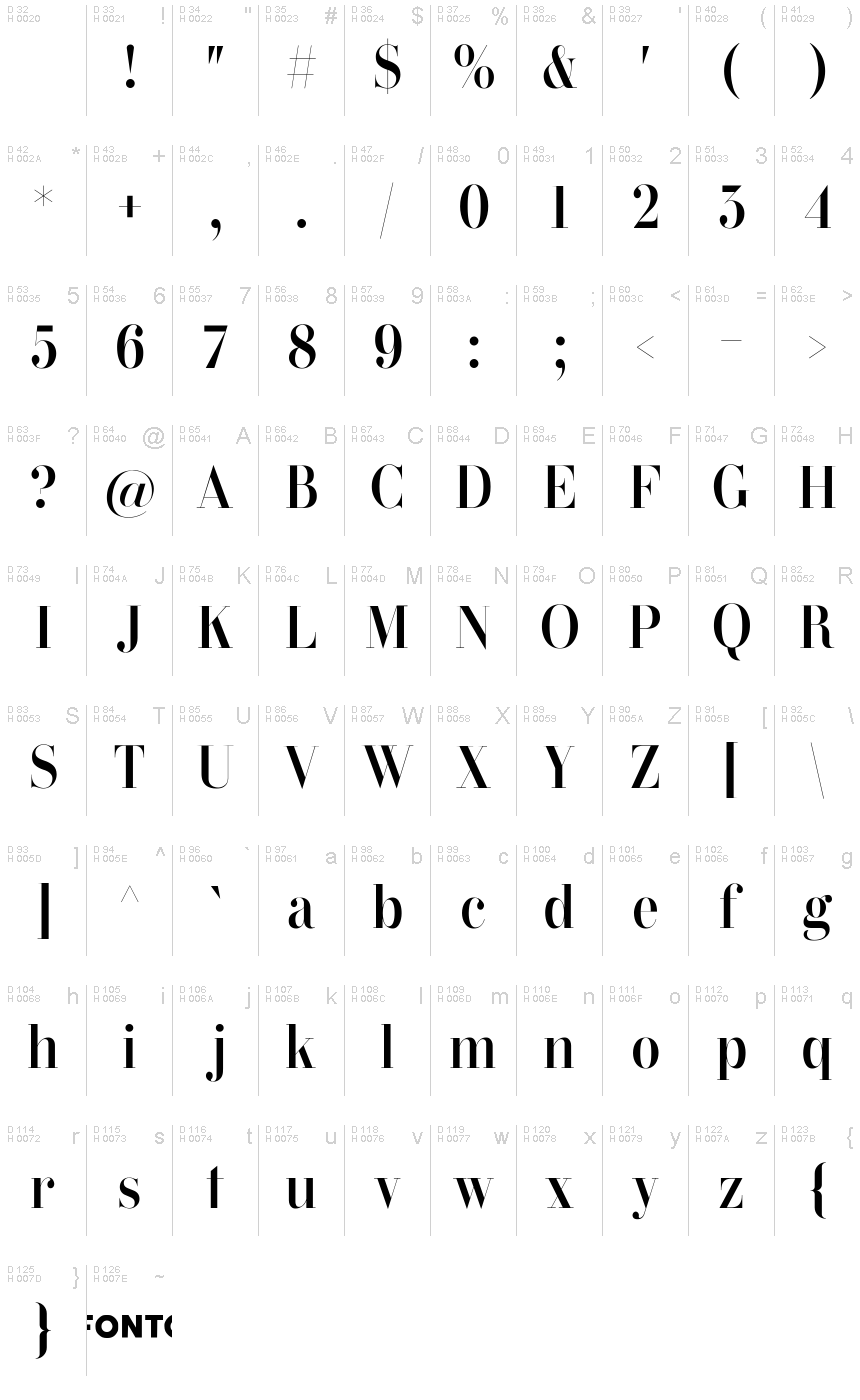
Bavex
Bavex, crafted by FG Studios, exudes an elegant yet contemporary charm through its distinctive serif style. The condensed structure offers a refined clarity, making it ideal for packed layouts while maintaining a sophisticated presence. Its striking forms feature graceful curves balanced with sharp accents, providing a unique visual rhythm that captures attention.
Perfect for branding, editorial designs, and signage, Bavex harmonizes modern aesthetics with timeless elegance. Its versatility shines in both digital and print formats, whether gracing headlines or crafting impactful calls to action. The font's inherent character makes it an excellent choice for projects seeking sophistication without sacrificing legibility or flair. Embrace Bavex for your next design endeavor to achieve a compelling and stylish outcome that stands out in any context.